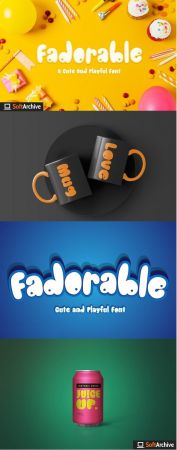
Fadorable is a handwritten vintage font. Work great for any design needs: logo, branding, modern advertising design, logos, poster quote, book/cover Title, editorial design, website/blog, card, custom mug, pillow, t-shirts, and any hand-lettered needs.